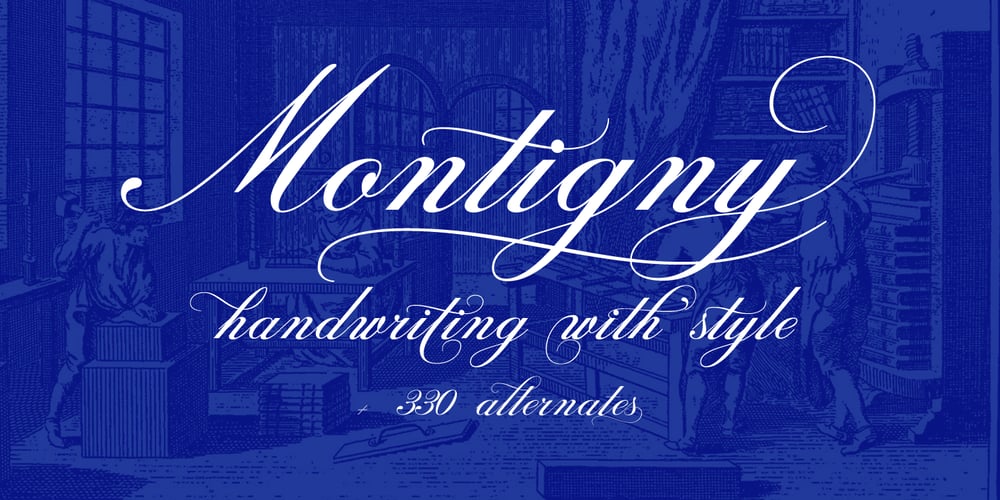
Montigny Font Family was designed by Carine de Wandeleer and published by Eurotypo. Montigny contains 1 styles and family package options. Montigny is a contemporary calligraphic font with classical roots, based on an 18th-century roundhand script. It is carefully designed, with a special emphasis on the connection of the letters, with high ascenders to give rise to the ornaments of the different letters. There is a special search for high readability.This font contain 585 glyphs, in addition, a wide selection of alternates and ligatures is included, to preserve the qualities of handwriting, in order to accommodate various design aesthetics. These alternatives are automatically applied through an advanced programming scheme or manually through several OpenType features.